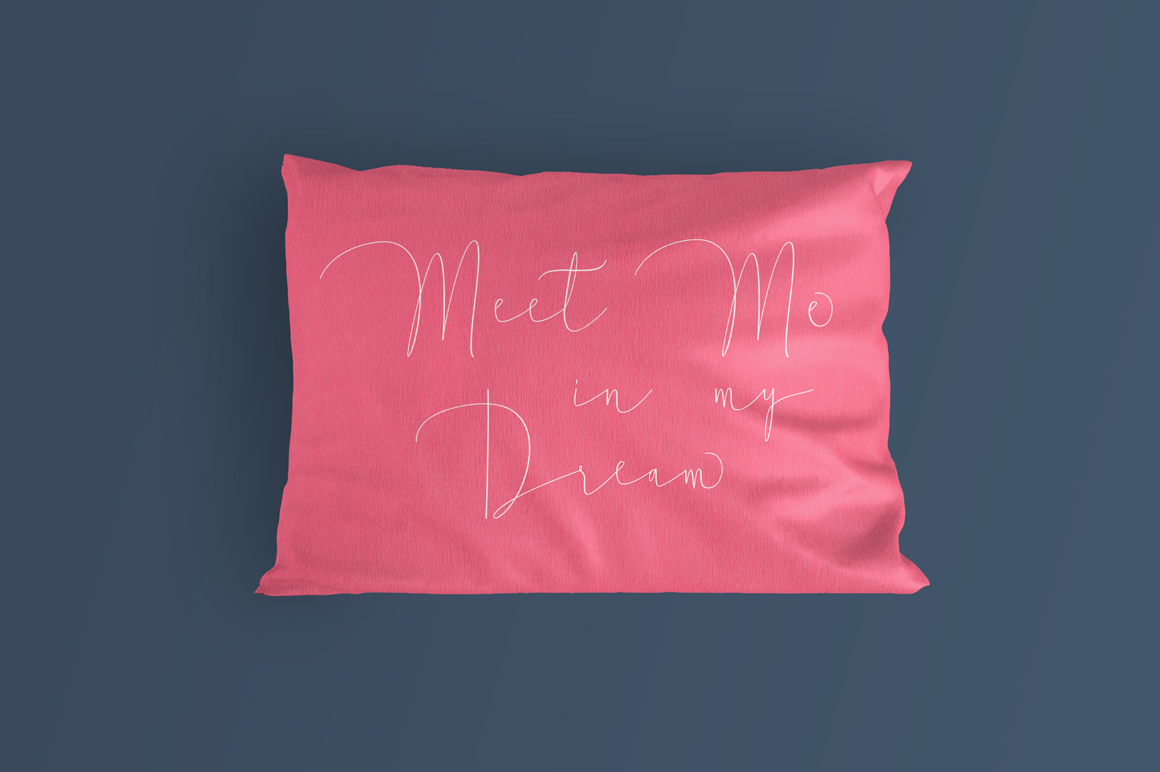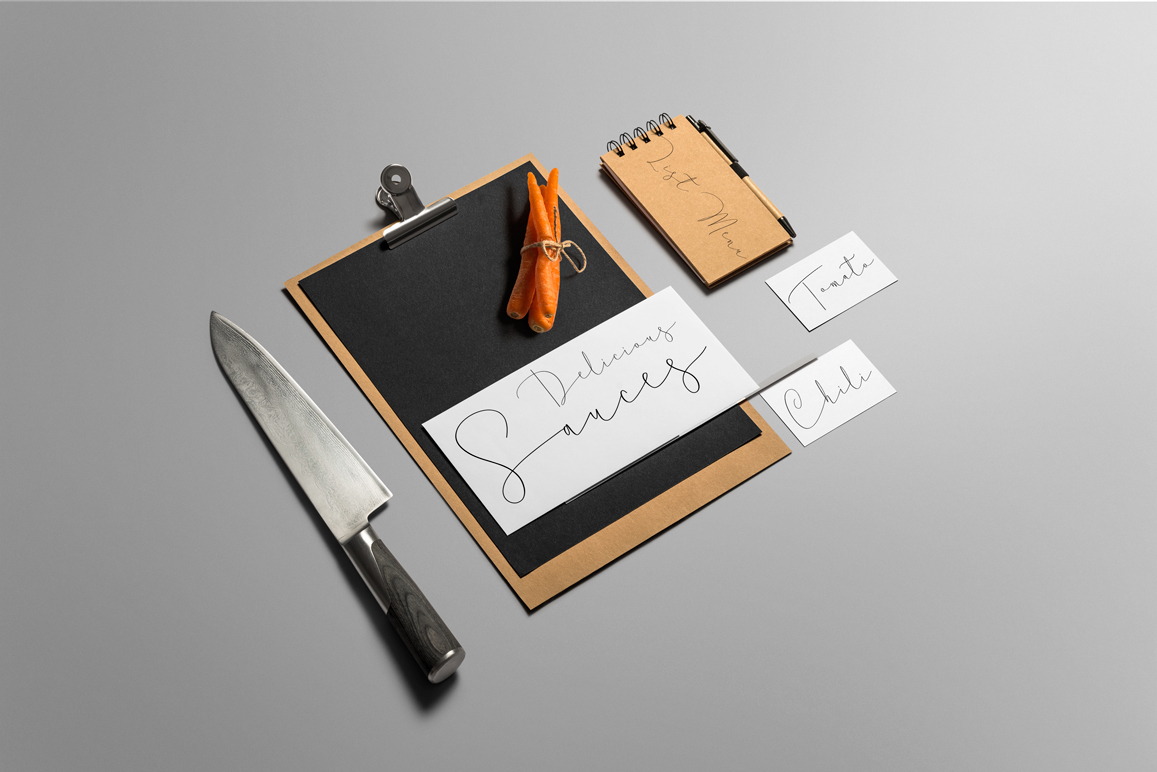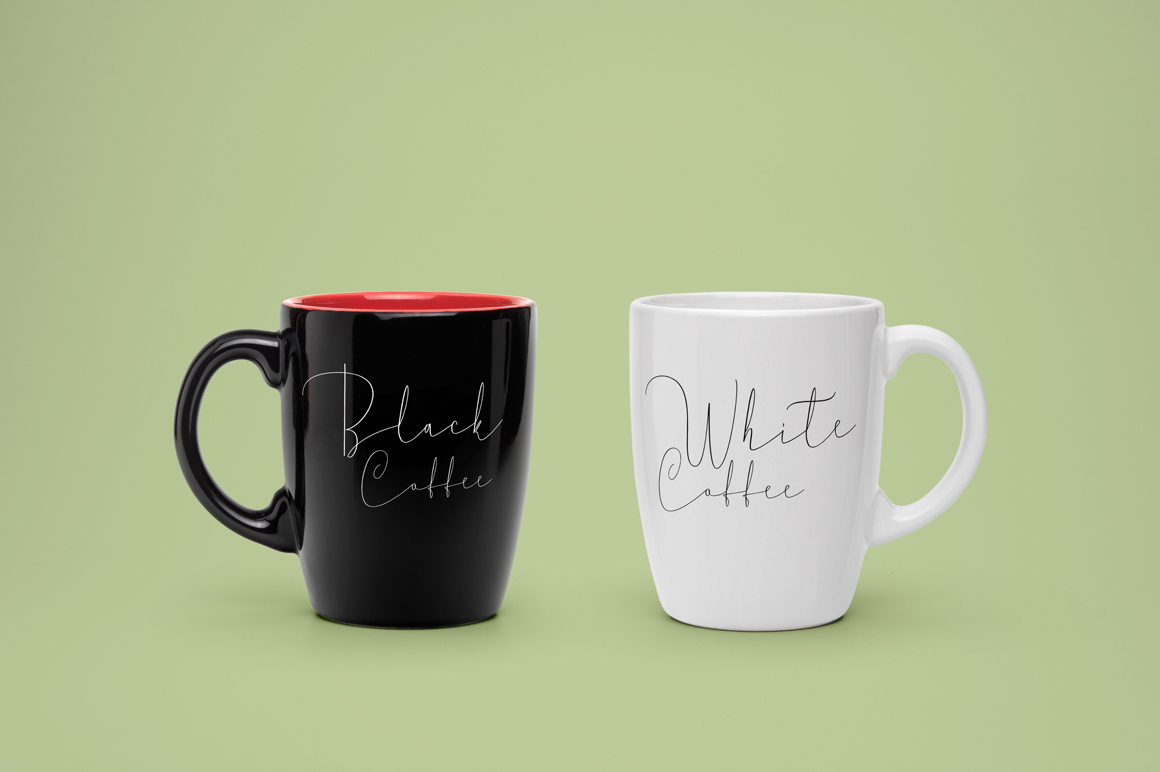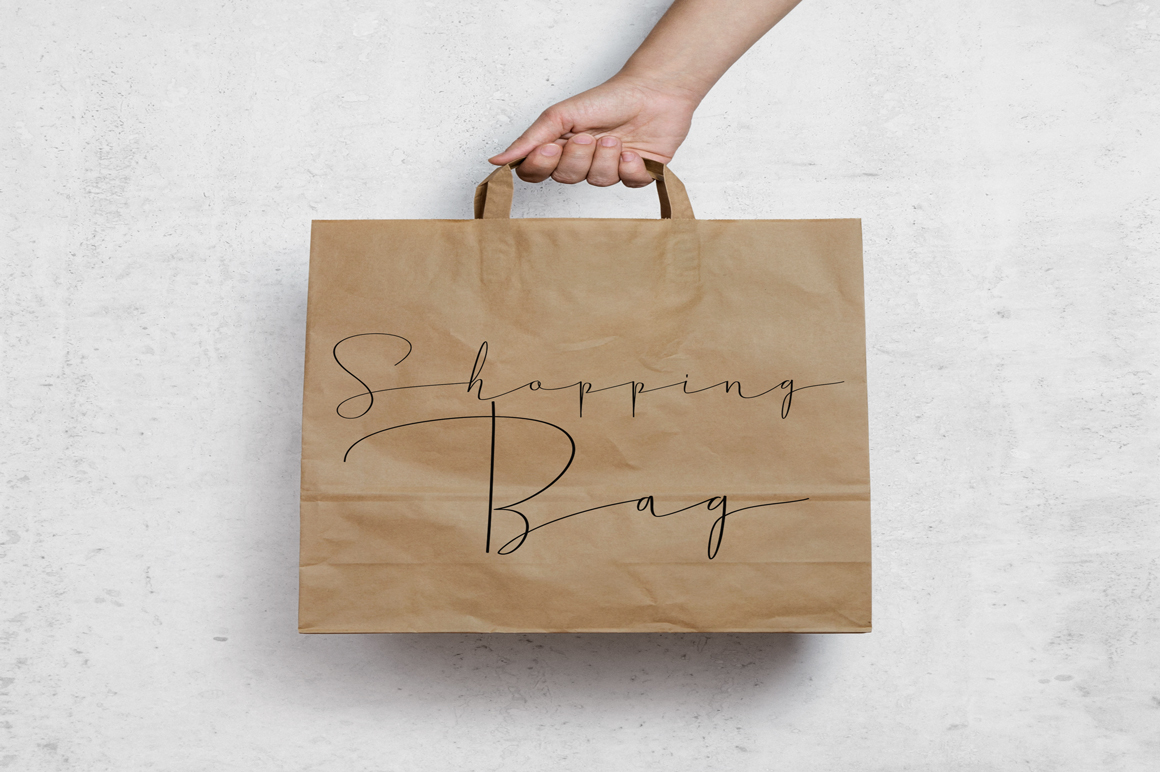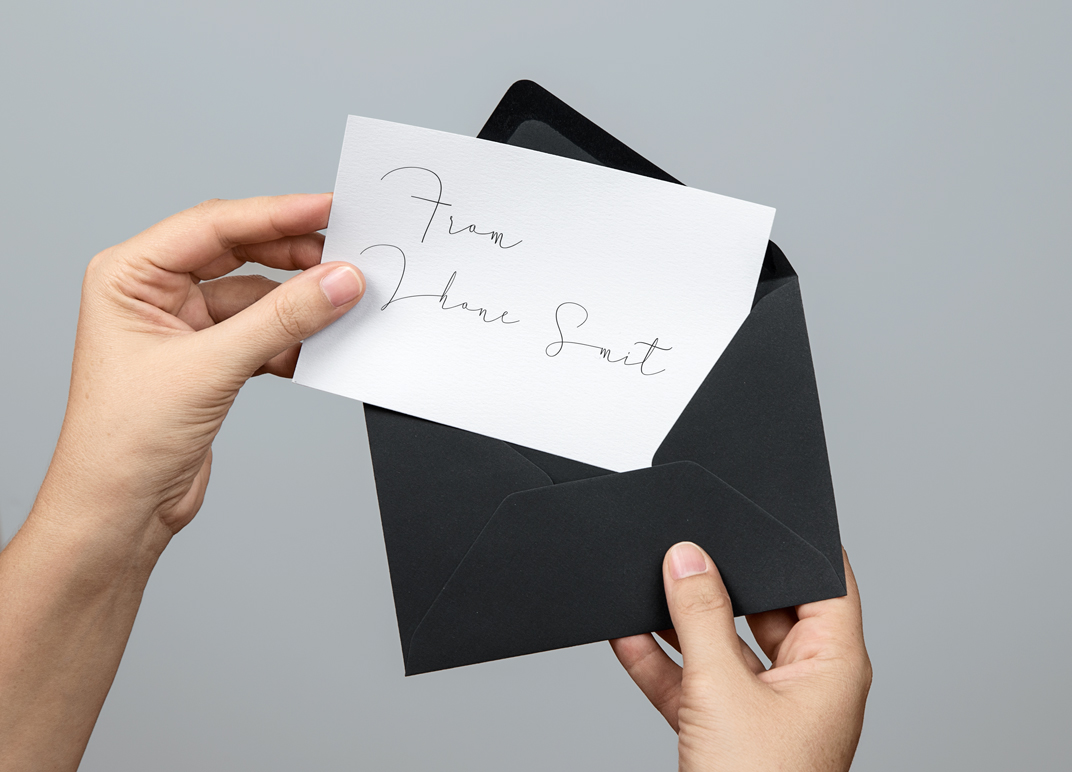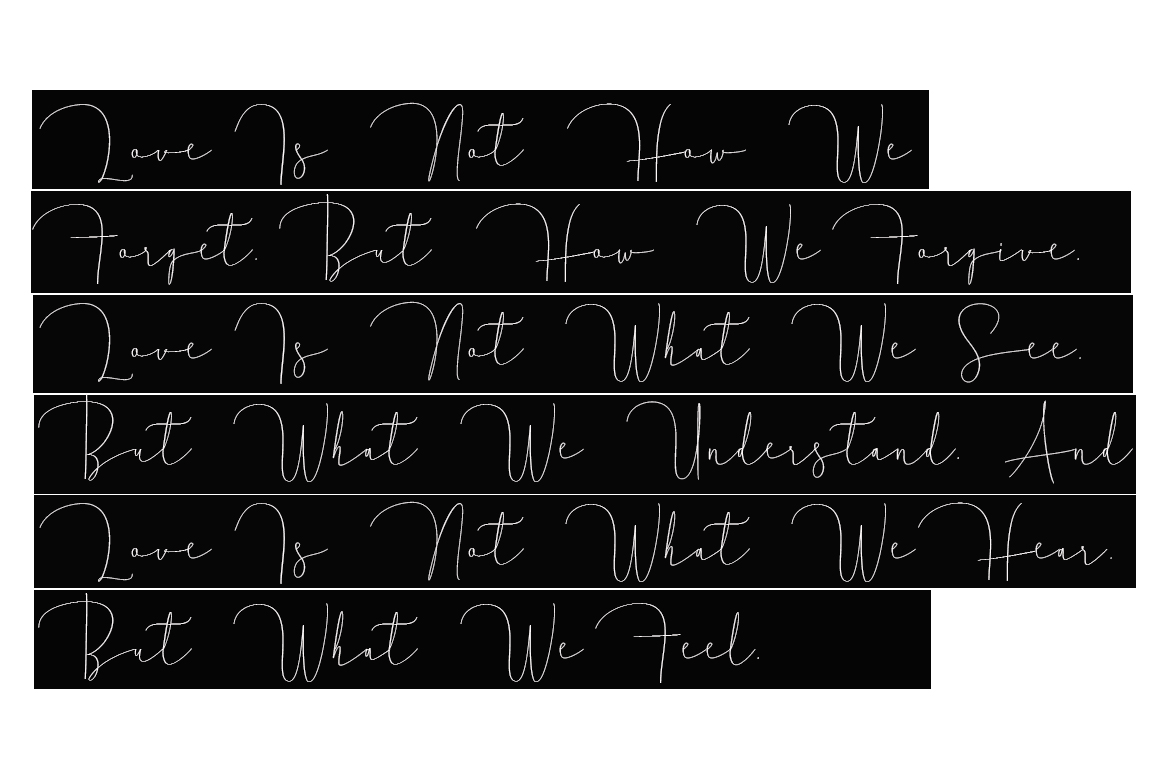
Introduction to Mellonya Font
As a designer, have you ever found yourself staring at a blank canvas, trying to conjure up the perfect font to bring your creative project to life? You’ve scoured the internet, searched high and low for that elusive design resource that will make your vision pop. And then, it happens – you stumble upon a font that not only elevates your design but also speaks to you on a deeper level.
For many designers, that font is the Mellonya Font, a modern calligraphy-style font that exudes elegance and sophistication. With its unique, handwritten feel, it’s the perfect addition to any high-quality design project, from wedding invitations to branding materials.
What sets the Mellonya Font apart is its versatility and natural written style, making it an invaluable resource for designers who crave a design element that’s both creative and timeless.
Key Features of Mellonya Font
- High-quality design with a unique, artistic style making it perfect for creative projects.
- Features a transparent background, allowing for easy layering and customization in design software.
- Comes in a single font size, making it easy to integrate into your design without worrying about scaling issues.
- Designed at a high resolution, ensuring crisp and clear typography in any design application.
- Perfect for designers, artists, and creatives looking for a unique and high-quality font to elevate their next project.
Honest Review: Mellonya Font
I recently had the chance to experiment with the Mellonya Font, and I must say it’s been a game-changer for my creative project. The high quality of this font has genuinely impressed me, and I appreciate its unique style.
One of the standout features of the Mellonya Font is its transparent background, which makes it incredibly versatile and easy to use. This design resource has been a lifesaver for me, allowing me to focus on the creative aspects of my project rather than worrying about font compatibility.
Here are some of the things that work well with the Mellonya Font:
- ✨ Unique and stylish design
- ✨ High-quality typography
- ✨ Transparent background for easy use
That being said, there are a few limitations to consider:
- ⚠️ Limited character set (not ideal for extended text)
- ⚠️ Not suitable for complex layouts
Overall, I’m thoroughly impressed with the Mellonya Font. Its unique style and high-quality typography make it an excellent addition to any design resource collection. If you’re looking for a creative and stylish font for your next project, I highly recommend giving the Mellonya Font a try.
For optimal results, use Mellonya Font on a transparent background to make your designs stand out. Experiment with different font sizes, colors, and styles to add a touch of elegance to your creative project.
Mellonya Font is ideal for use in logos, business cards, invitations, and other design projects that require a high-quality, sophisticated font. Its versatility and elegance make it a popular choice among designers and creatives.